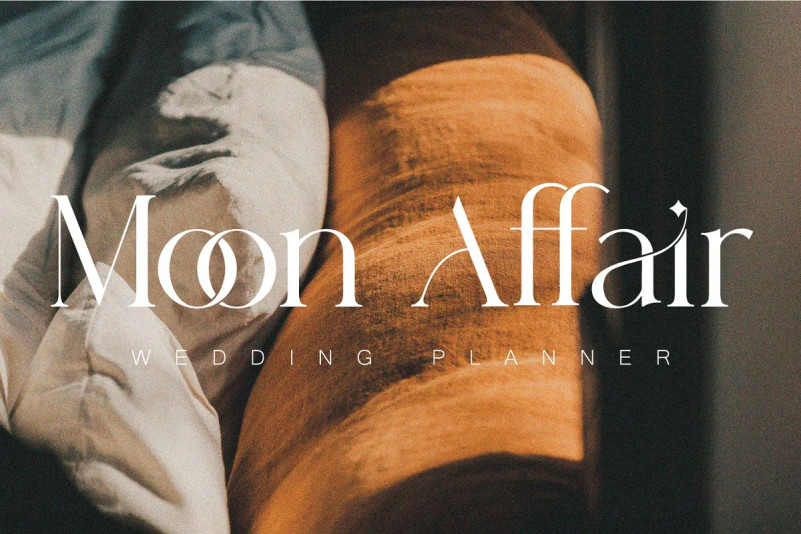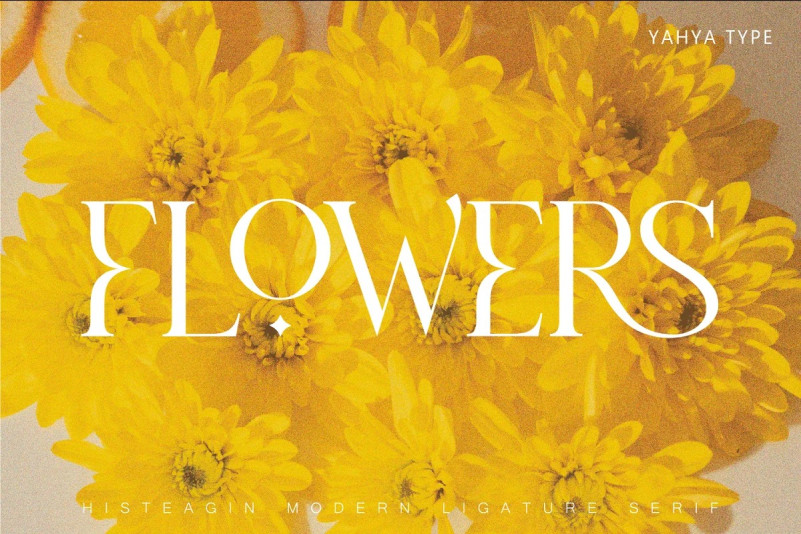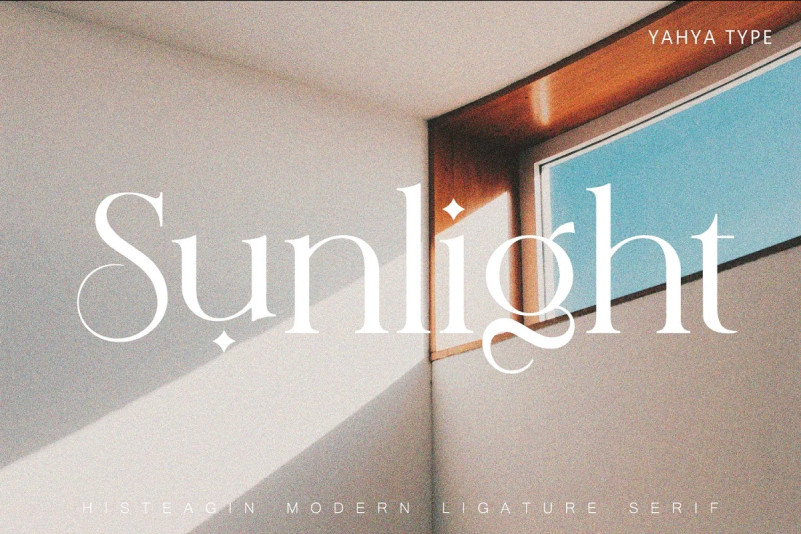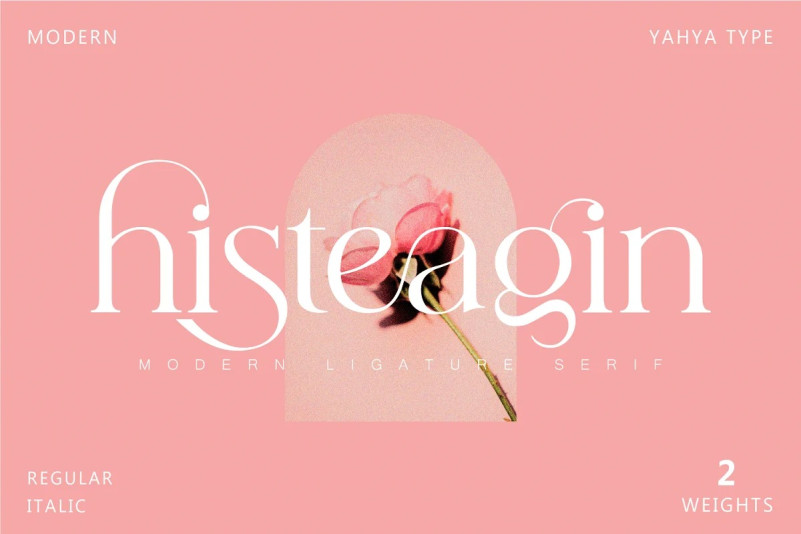
Histeagin Serif Font
Histeagin Serif Font is a trendy, elegant, modern style sans serif font for your new modern projects. This style work well for branding projects, logo, wedding designs, social media posts, advertisements, product packaging, product designs, label, photography, watermark, invitation, or whatever project you’re working on.